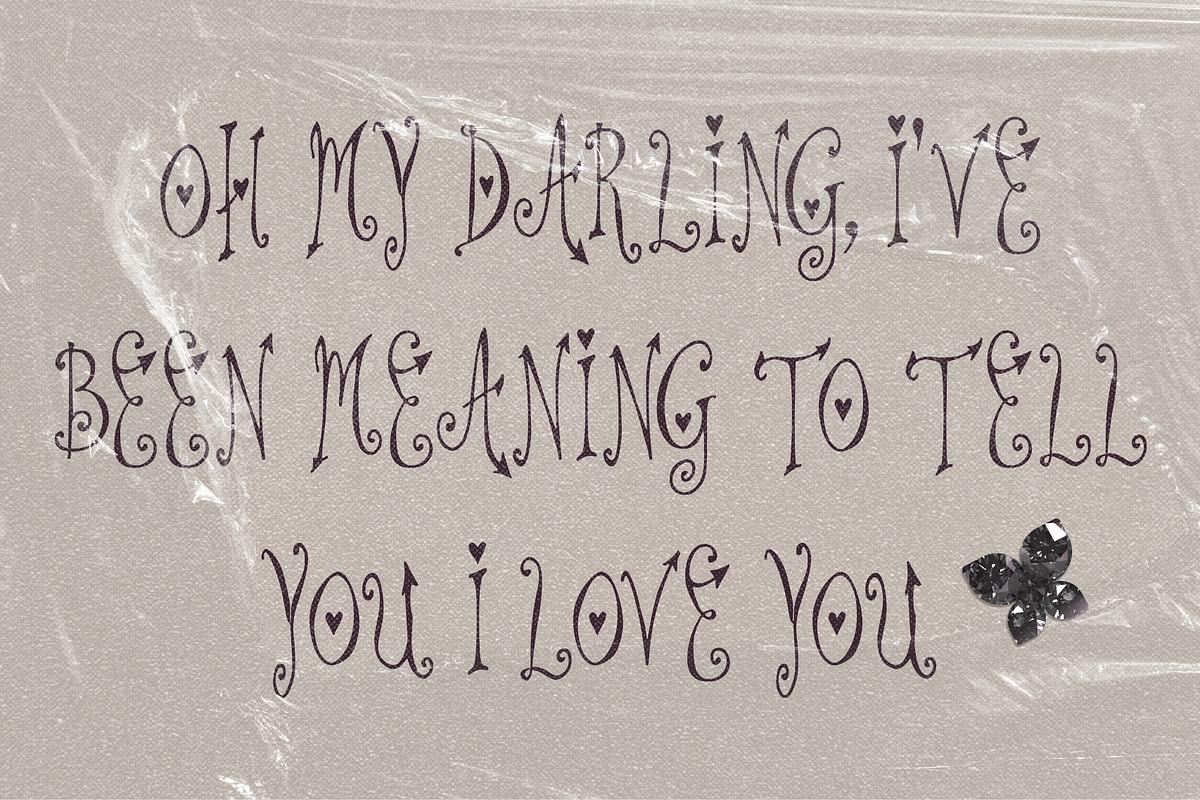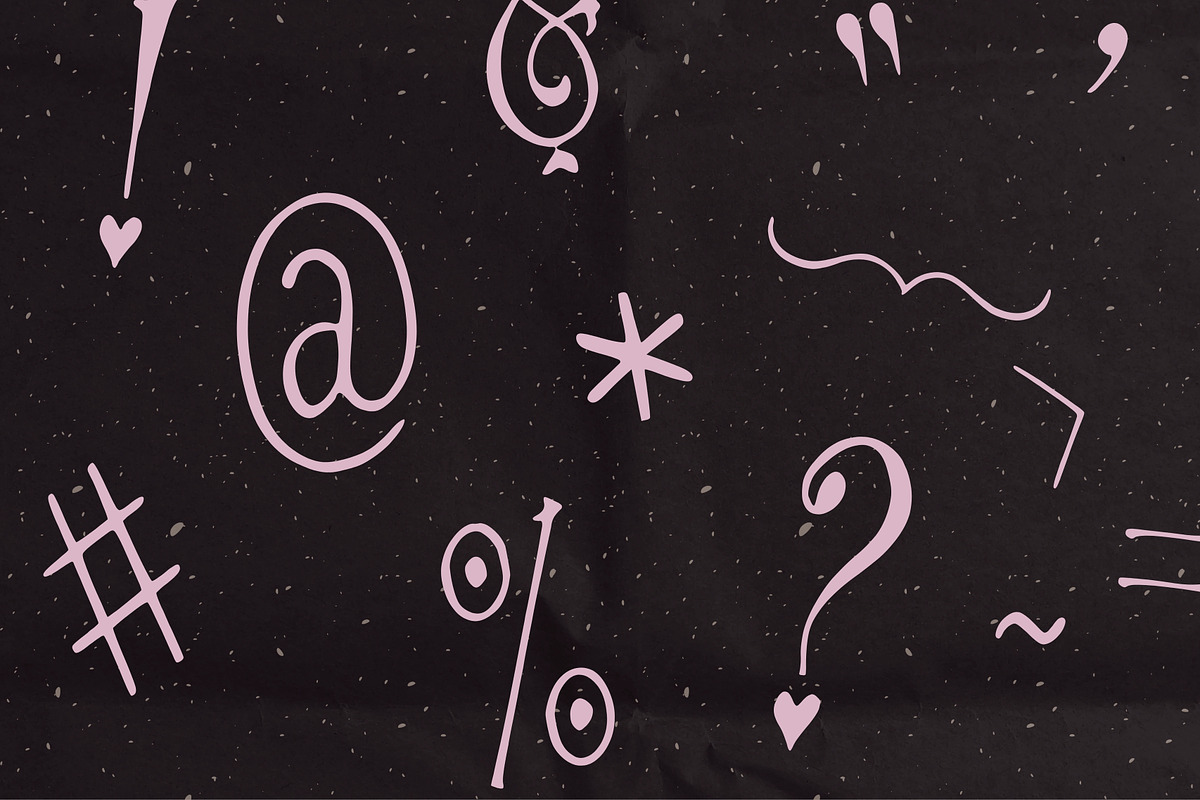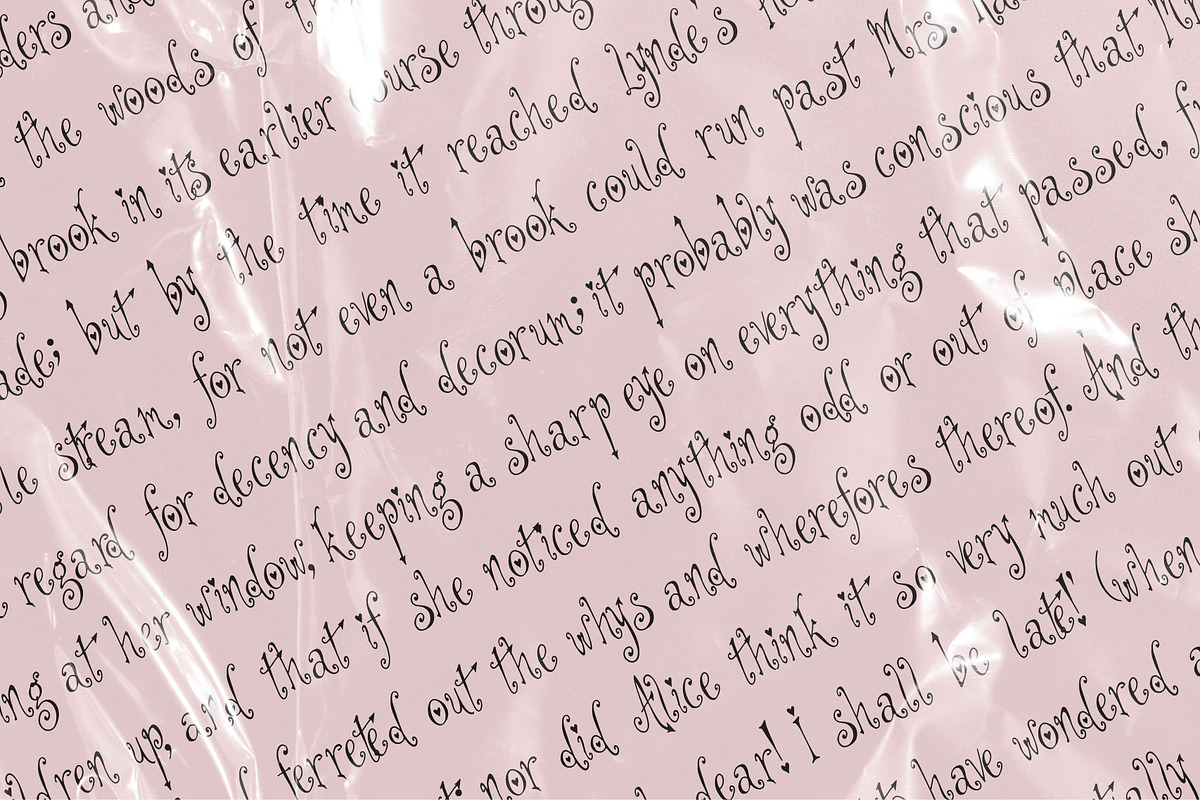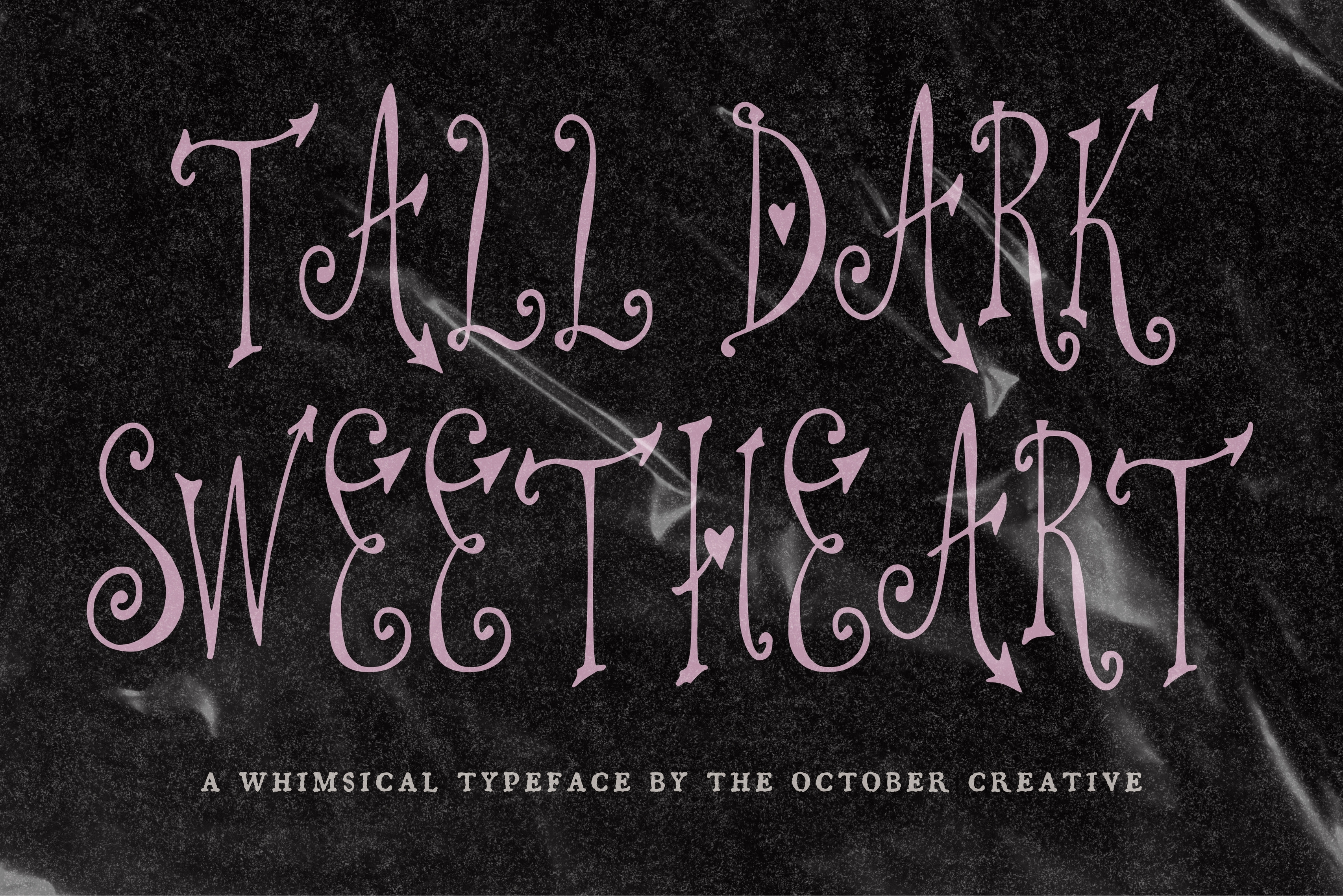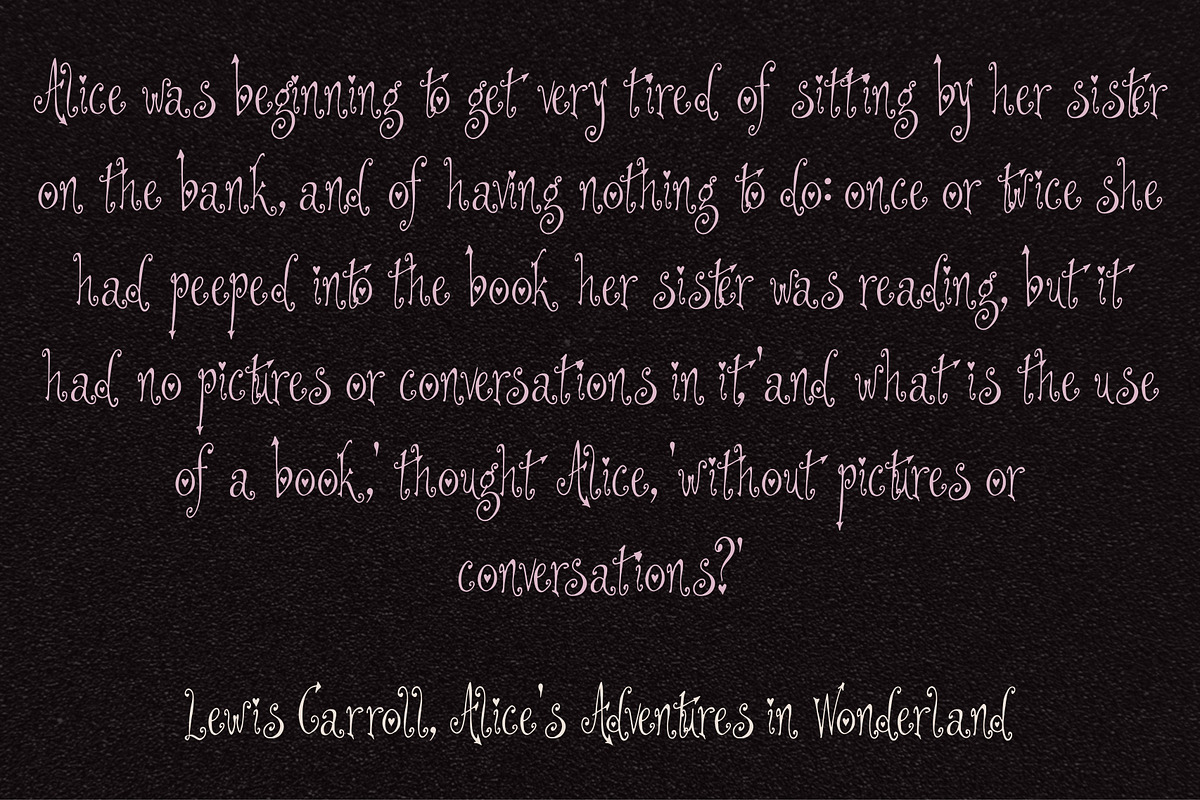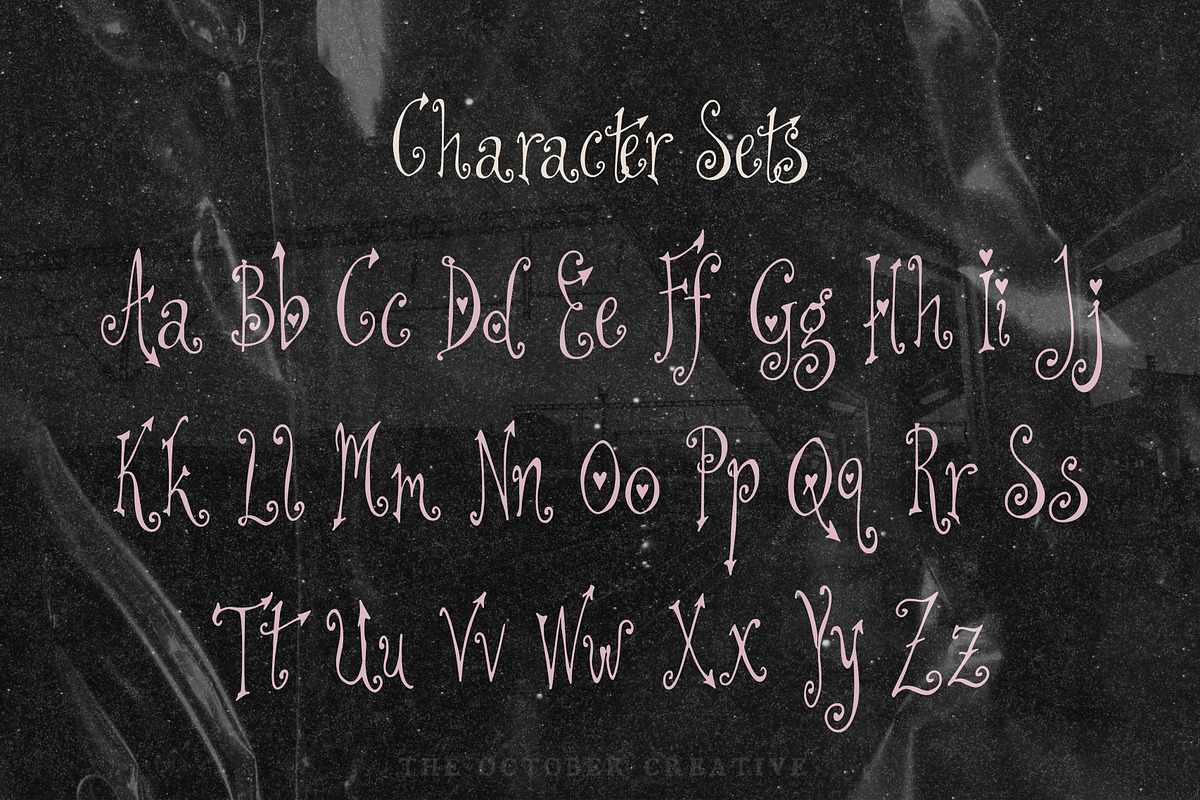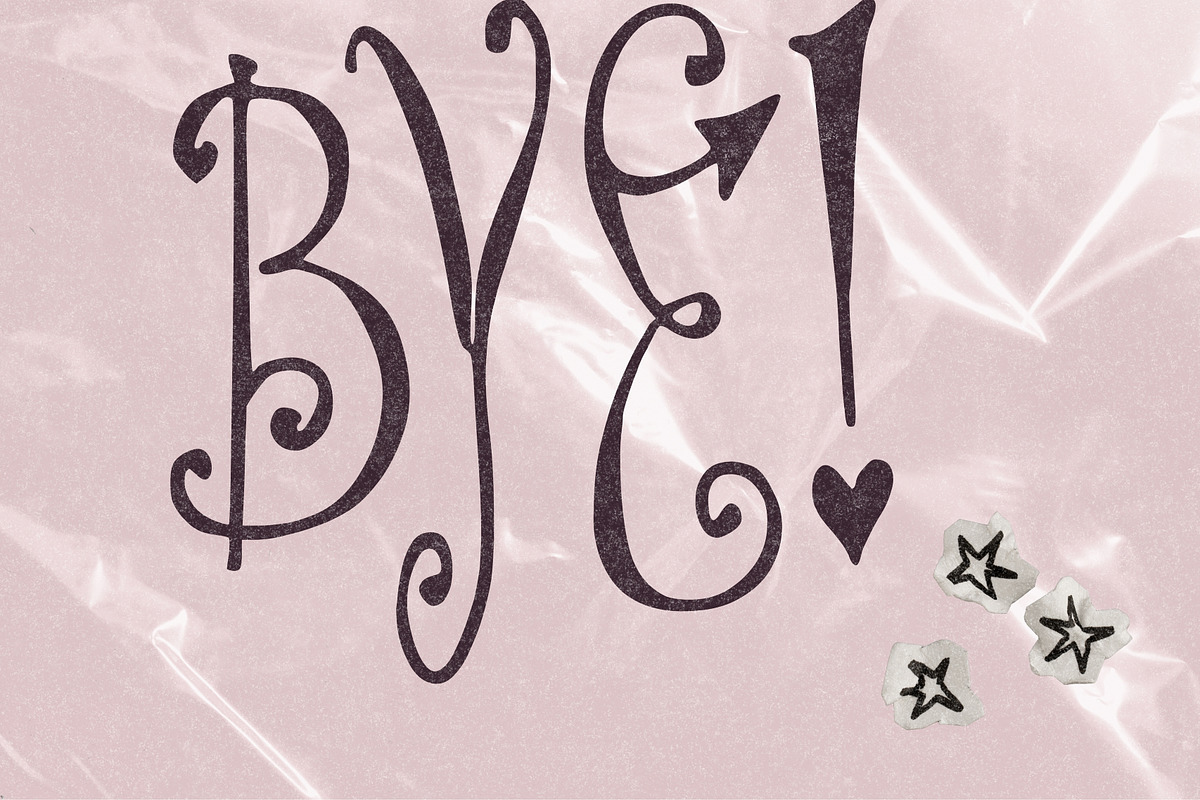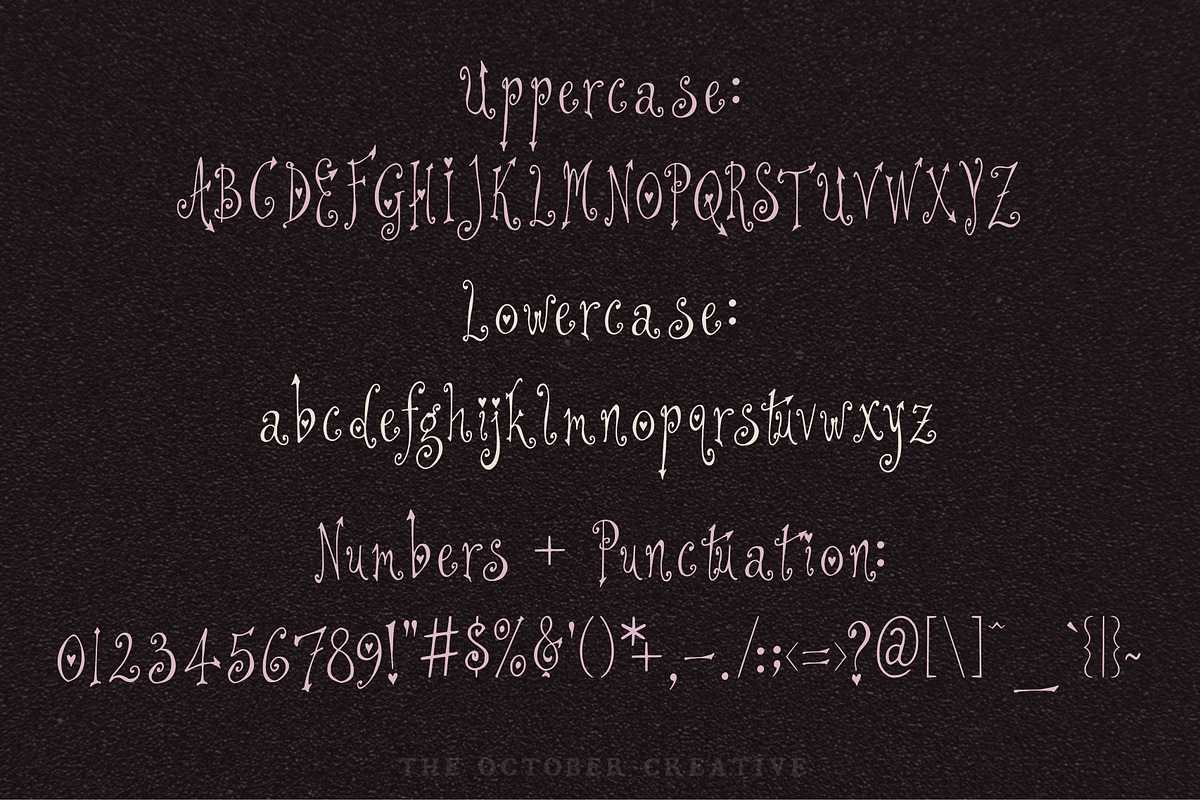
Tall Dark Sweetheart Odd Serif Font
Tall Dark Sweetheart is a sweetheart display font with tall thin letters, small hearts tucked into the a and the dots, and little arrowheads on the t and the r. It fits valentine cards, love notes, romantic prints, and wedding stationery.
CHARACTER SET
Uppercase A to Z, lowercase a to z, numerals 0 to 9, and every standard keyboard punctuation mark and symbol: ! " # $ % & ' ( ) * + , - . / : ; < = > ? @ [ \ ] ^ _ ` { | } \~
Curly quotes and apostrophes (‘ ’ “ ”), en and em dashes, an ellipsis, and a bullet.
Accented letters: À Á Â Ã Ä Å Ç È É Ê Ë Ì Í Î Ï Ñ Ò Ó Ô Õ Ö Ù Ú Û Ü and their lowercase forms.
LANGUAGES SUPPORTED
English, plus the accented vowels, Ñ, and Ç used in names and everyday words in Spanish, French, Italian, Portuguese, German, and Dutch. Not included: ß, Æ, Ø, Œ, and the upside-down ¿ and ¡.
SPECIAL CHARACTERS